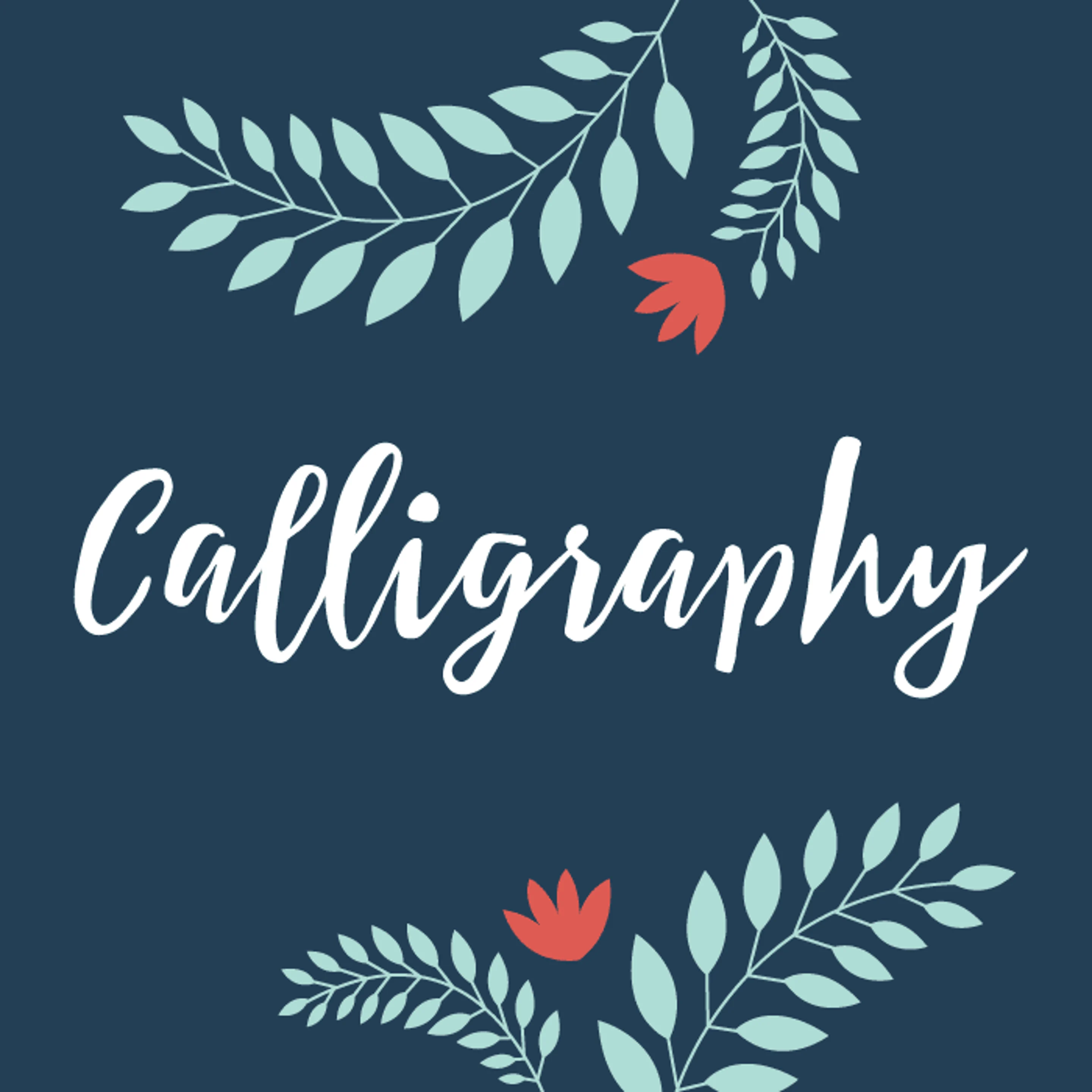
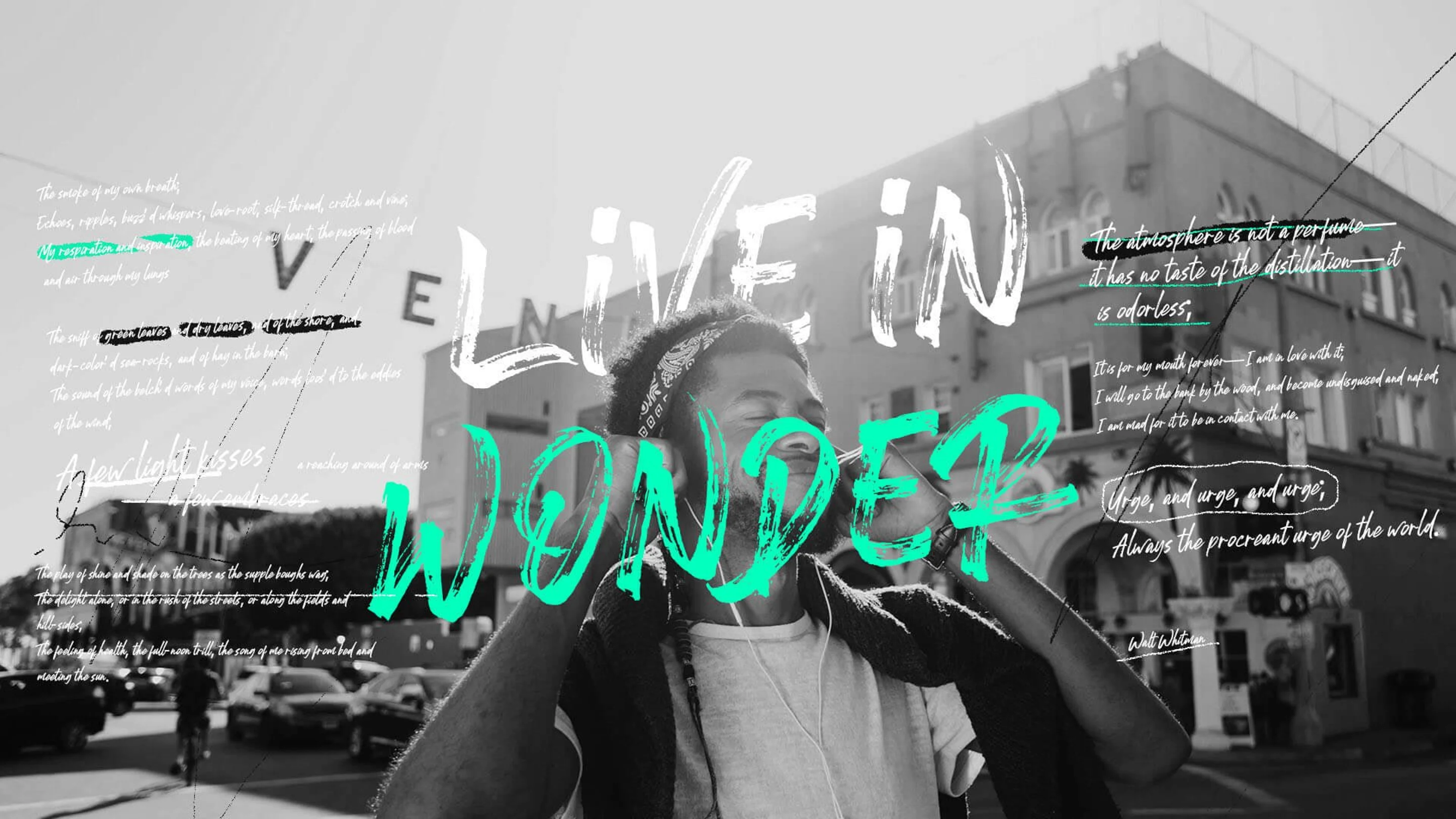
Finding the right calligraphy font for your needs can be a hard and arduous task.
They are either too decorative and flashy for your simple designs or too simple and modern for your formal designs.
Calligraphy fonts have many uses and are best paired with a simple body font for balance. Use them sparingly so you don’t overpower your designs, or break the rules and see what you can create.
This collection of 60 free calligraphy fonts has all your bases covered, from romantic and feminine swirls to masculine bold monoline fonts that will add character to any design.
In the article below, we have found 60 of the best free calligraphy fonts to download and use to bring charm to your designs.
Classic brush style calligraphy font with elegant and dramatic Caps. The short ascenders and descenders are uncommon in calligraphy fonts, making Alex Brush one of the most legible classic styles.
Feminine flowing typeface with a casual handwritten feel that is diverse in its potential uses. It is simple and legible and is perfect for package design and as a display typeface.
The varying bold and thin strokes of Arizonia make it a great eye catching typeface. It includes many interesting characters such as the lowercase z, and a subtle Arabian influence which give it character.
A simple modern handwritten style font that is perfect for when you want to add a personal touch without being overly formal. The varying thick and thin strokes are what gives the font its character.
A modern, monoline typeface that is clean and unpretentious making it great for any feminine or masculine design purposes.
This vintage inspired font is thick and playful. Perfect for eye catching headers that require a lot of character.
A classic condensed font with varying thick and thin strokes that can be used across a variety of projects.
This realistic yet charming brush script with varied thick and thin smooth strokes is sure to add character to you designs. Perfect for when you need to inject a personal touch and a hand drawn effect.
A bold monoline cursive font that comes with many OpenType Features for creating interesting ligatures and variations.
An elegant classical display font that is very legible. This font is very versatile and timeless in its design and is great for traditional and formal applications.
A classic feminine font with dainty thin strokes. Best used for large to medium sizes of text and would be perfect for headings or on invitations(opens in a new tab or window).
This font based on brush calligraphy and inspired by 1950s style is very approachable. As it is not overly decorative, Cookie is very versatile and capture attention in a non-aggressive manner.
A tall and classic calligraphy font that will add a touch of elegance to any design. Great for short lines of text.
A lively modern casual font with big caps that go below the baseline. Dancing Script is a great option for adding a friendly and stylish look to your designs. Perfect to include in various greeting cards such as thank you cards(opens in a new tab or window), birthday cards, anniversary cards, and more to elevate your message with sophistication and charm.
This thick stroked font is sure to draw attention and add character with its structured and industrial design.
This font is inspired by early hand lettering styles and will inject an exoctic feel to your work. The unusual ligatures and extremely varied stroke widths make Dr Sugiyama a font that your audience will remember. Make sure to use this font sparingly so as not to over complicate your designs.
Download at: 1001 Fonts(opens in a new tab or window).
Here's an example of a template using the Dr Sugiyama font: Modern Artist Feature Instagram Post(opens in a new tab or window)
A casual and playful calligraphy font with unconnected letters that make it highly legible and perfectly suited for titles and short lines of text, especially those related to food or fashion.
Download at: Font Squirrel(opens in a new tab or window).
This monoline font with a retro feel would be perfect for branding and headings. Retro style fonts are very popular and pair well with an elegant serif font or minimal sans serif font to create high impact designs.
Download at: 1001 Fonts(opens in a new tab or window).
A unique and curly font that is a good choice for adding a formal and elegant feel to any design. The graceful flowing forms are sure to entice your audience.
Download at: 1001 Fonts(opens in a new tab or window).
A quirky and fun font that features the flow of real handwriting. The uneven letters give the font its character. Perfect for when you want to add a personal touch without the hassle of scanning in your own handwriting.
Download at: 1001 Fonts(opens in a new tab or window).
Related article: 50 free stylish fonts to bring a touch of elegance to any design(opens in a new tab or window)
Here's an example of a template using the Give You Glory font: Blush Peach Photo Birthday Instagram Post(opens in a new tab or window)
Something a bit different, this gothic and medieval inspired font comes with many weights and is sure to add character and a traditional feel to your work.
Download at: Fontsc(opens in a new tab or window).
An uneven handwritten font with realistic imperfections and a chunky stroke width is packed full of character that will make your work stand out.
Download at: Dafont(opens in a new tab or window).
A condensed upright connecting script with a classic vibe to it. This font would pair well with a minimal sans serif font to create powerful engaging designs. It’s monoline weight is perfect for high legibility.
Download at: Font Squirrel(opens in a new tab or window).
Here's an example of a template using the Grand Hotel font: Blue Illustrations Birthday Instagram Post(opens in a new tab or window)
A beautifully clean flowing connecting script with heavy strokes and dramatic caps. The elegant feel of the looping ascenders and descenders make this font great for attention grabbing titles.
Download at: Font Squirrel(opens in a new tab or window).
A traditional and elegant font with a vintage feel. This unique font is a serious competitor against its paid counterparts, and would be a suitable substitute for when real handwriting is required or needed to add character.
Download at: Font Squirrel(opens in a new tab or window).
This font mimics real handwriting and is quite childlike in its design. Homemade Apple would definitely add charm and character to your designs especially those involving food or families.
Download at: FontSpace(opens in a new tab or window).
Here's an example of a template using the Homemade Apple font: White Flatlay Mother's Day Instagram Post(opens in a new tab or window)
A casual handwritten font with clean and elegant strokes. This approachable font will add character and personality to any branding projects.
Download at: Jenna Sue design(opens in a new tab or window).
This rustic and unrefined calligraphy font is optimized for smaller sizes making it the perfect web font. The imperfections of Kaushan Script give it its character that is sure to add impact to your work.
Download at: 1001 Free Fonts(opens in a new tab or window).
Here's an example of a template using the Kaushan Script font: Blue Border Quote Instagram Post(opens in a new tab or window)
A traditional blackletter font with a modern twist that makes it great for adding a classic feel while still remaining casual.
Download at: Font Squirrel(opens in a new tab or window).
This casual and unique font features tall ascenders and descenders with slim uneven strokes. Best used at a large size such as a heading or logotype for maximum impact. Kristi is bound to add a personal feel to any design.
Download at: Font Squirrel(opens in a new tab or window).
Kristi by Birgit Pulk
Related article: 9 terrific font pairs for you to try(opens in a new tab or window)
A very realistic calligraphic font with wobbly lines and imperfections that give it character and a personal touch. The thick and thin variations make it perfect for headings and short lines of text.
Download at: Font Squirrel(opens in a new tab or window).
This font mimics cursive lettering practice worksheets making it playful and friendly. The modern style makes it very legible and flexible.
Download at: Font Squirrel(opens in a new tab or window).
A thick and bold font with irregular brushstrokes will add serious character and charm to your work. The unique chunky loops connect each letter making it readable and polished.
Download at: 1001 Fonts(opens in a new tab or window).
A very simple and romantic thin monoline font perfect for adding a feminine touch to your designs.
Download at: 1001 Free Fonts(opens in a new tab or window).
The bold condensed letters of Lobster font alongside its many ligature options make it a very versatile and popular font.
Download at: Font Squirrel(opens in a new tab or window).
Here's an example of a template using the Lobster font: Colorful Photos Plain Collage Instagram Post(opens in a new tab or window)
A hand drawn style monoline font with a small X height and tall ascenders and descenders. This font is great for feminine and children-orientated designs with its curly and dainty calligraphy style.
Download at: 1001 Free Fonts(opens in a new tab or window).
Inspired by the creator’s girlfriend and her handwriting this font is very romantic and personal. Not intended for long pieces of text this light and simple font with tall ascenders and descenders is perfect for small amounts of text.
Download at: 1001 Fonts(opens in a new tab or window).
A sweeping calligraphy font with varied stroke widths gives the feeling of joy and elegance. The upright handwritten polished style makes it perfect for display uses that require a bit of added flair. It is best suited for large text sizes for high impact.
Download at: 1001 Fonts(opens in a new tab or window).
An intricate and simple classic calligraphy font that will add character to your designs without detracting from other elements. The connected letters give added legibility.
Download at: 1001 Free Fonts(opens in a new tab or window).
A casual monoline script font with a touch of vintage is the perfect calligraphy font to be used for any informal uses where high legibility is required.
Download at: Font Fabric(opens in a new tab or window).
Here's an example of a template using the Nickainley font: Blue Beach Photo Summer Instagram Post(opens in a new tab or window)
Inspired by vintage typefaces, this calligraphy font has beautifully flowing lines, thick strokes and 12 degree slant making it a very versatile and androgynous font.
Download at: 1001 Fonts(opens in a new tab or window).
A casual bold calligraphy font with flowing and legible non connected lines, Oleo Script, available in bold and regular, can be used in many situations where a modern and trendy feel is required.
Download at: 1001 Free Fonts(opens in a new tab or window).
Here's an example of a template using the Oleo font: White Father's Day Instagram Post(opens in a new tab or window)
Inspired by 1950s American surf culture, this modern brush script is the perfect solution for a bold and engaging calligraphy font
Download at: Font Squirrel(opens in a new tab or window).
A casual take on the more formal calligraphy fonts, Parisienne has a free spirited feel to it with its connecting letterforms and swirly dramatic caps.
Download at: FontSpace(opens in a new tab or window).
Here's an example of a template using the Parisienne font: Simple White Texts Beach Instagram Post(opens in a new tab or window)
This romantic, round hand calligraphy font is both friendly and dramatic and lends well when a formal tone is required.
Download at: FontSpace(opens in a new tab or window).
Inspired by American sporting calligraphy, this connecting font is very bold, masculine and athletic making it perfect for festive informal and sporting occasions.
Download at: 1001 Fonts(opens in a new tab or window).
A contemporary calligraphy font with a feminine feel and decorative swirly letterforms, Qwigly Regular is great for when a touch of elegance is needed.
Download at: Fontsc(opens in a new tab or window).
Although not as traditionally calligraphic as the others, this font still nods to vintage calligraphy styles with its thin upstrokes and thick downstrokes. The Art Deco inspired font is very unique and eye catching and is great for adding a subtle calligraphy effect to your work.
Download at: Font Squirrel(opens in a new tab or window).
Inspired by early Victorian and Art Deco calligraphy Rochester is perfect classic font for adding class and style to your work. The upright connected letterforms are legible and modest that give it a timeless character.
Download at: 1001 Fonts(opens in a new tab or window).
This casual monoline semi-connected calligraphy font is inspired by hand-lettering of the 1950s and 1960s and is perfectly suited for headings.
Download at: 1001 Fonts(opens in a new tab or window).
Related article: 60 free fonts for minimalist designs(opens in a new tab or window)
Here's an example of a template using the Sacramento font: Photo Adventure Script Instagram Post(opens in a new tab or window)
Satisfy has a timeless classic look with a modern flair. The semi connected letterforms provide a personal touch of realistic handwriting.
Download at: 1001 Fonts(opens in a new tab or window).
Inspired by the lettering of commemorative plates, Sevillana is a friendly and curly headline typeface that is best suited for medium to large sizes.
Download at: Fontsc(opens in a new tab or window).
A beautiful upright script font that is both inviting and unique. The high legibility and unconventional ligatures of this font make it very versatile.
Download at: Font Squirrel(opens in a new tab or window).
This traditional calligraphy font inspired by italic chancery hands from the 16th and 17th Century is great for headings at large sizes when a formal feel is need.
Download at: 1001 Fonts(opens in a new tab or window).
Here's an example of a template using the Tangerine font: Cream Simple Coffee Instagram Post(opens in a new tab or window)
Another bold traditional blackletter font that is sure to add some serious character to your work. This style is perfect for formal designs that require a certain traditional flair.
Download at: 1001 Free Fonts(opens in a new tab or window).
This clean handwritten style font is the perfect simple solution for adding a touch of class and character to your designs without over complicating them.
Download at: 1001 Fonts(opens in a new tab or window).
Based off real handwriting, this curvy monolined font is a great modern way of incorporating calligraphy into your work.
Download at: 1001 Fonts(opens in a new tab or window).
Windsong is and elongated dramatic script font with eye catching and free flowing ligatures and swooshes.
Download at: Font Squirrel(opens in a new tab or window).
This old school styled flat brush script is a mix of connecting and unconnecting letterforms make it easily readable. Reminiscent of sign painter scripts, this modern interpretation is perfect for adding character to a variety of design purposes.
A flat nib connecting script font with a vintage feel, Yesteryear is neither overtly masculine or feminine which opens up a wide array of uses in your designs.